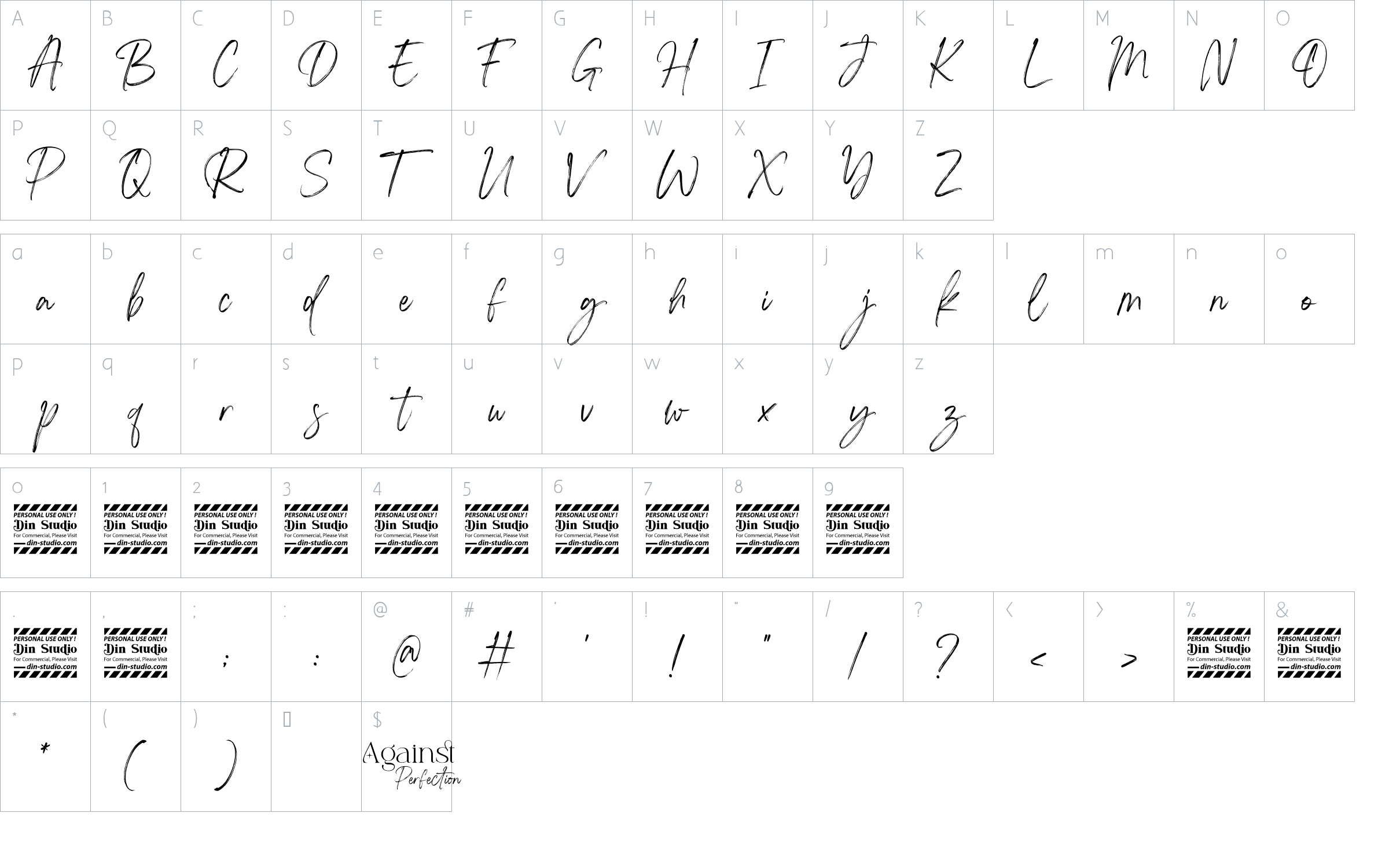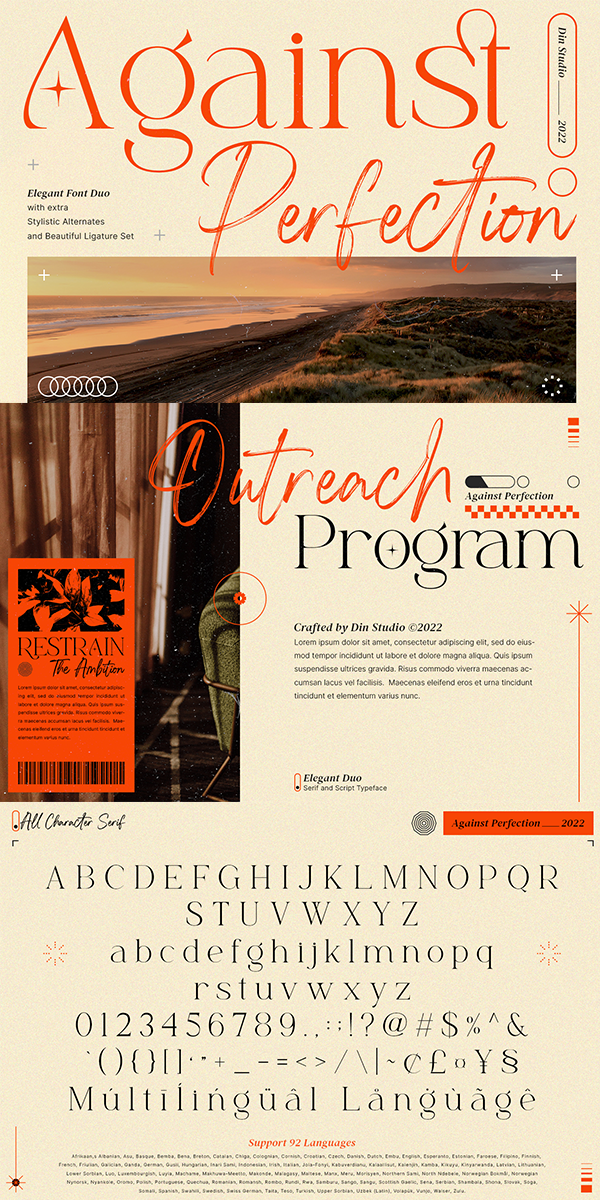
Against Perfection Font
About Against Perfection
With Against Perfection you can boost your design performance to the max. Against Perfection is a brush script font combined with a pleasing serif font. This pairing of script and serif offers just enough sensuous curves for appealing design result. Together, these complementary fonts convey modern and elegant looks. The swoosh and brush style details make the whole word look custom-designed. On the other hand, the serif font has a nice, solid weightiness combined with smoothed-off shoulders. Further more, this font has fascinating features that helps you maximize your design.